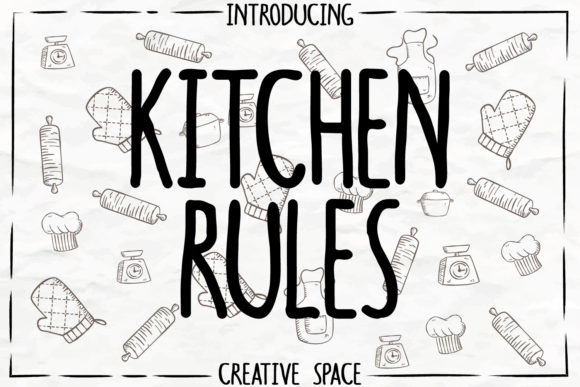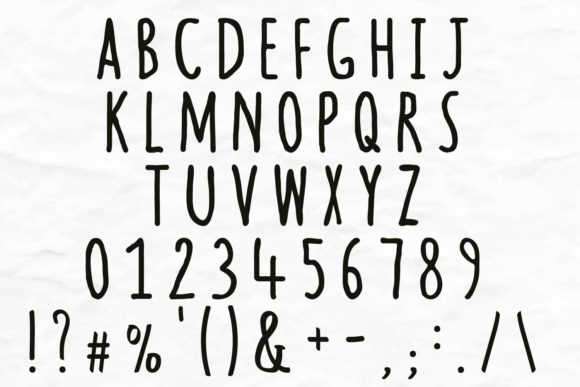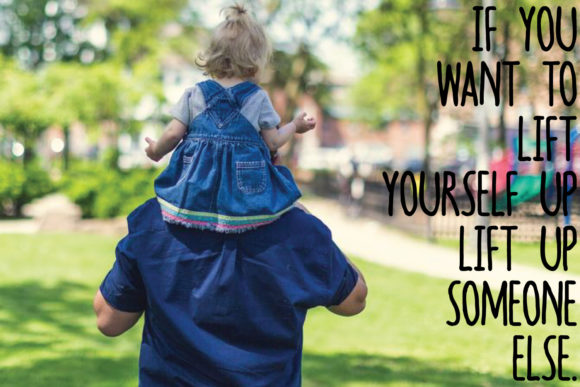
HomeScript FontsKitchen Rules Font Script Fonts Kitchen Rules Font FacebookXPinterestWhatsApp Kitchen Rules Font Poster 2 Kitchen Rules Font Poster 3 Kitchen Rules Font Poster 4 About Kitchen Rules Font Kitchen Rules is a beautiful handwritten font that offers a personal and playful twist on any design. DOWNLOAD NOW People also explored Shelbymalkan Font Hu Malrang Kr Font Banana Shake Font Operatr Font Maroon Marble Bella Canvas 3005 Mockup Juragan Font Holy Mary Font Self Sparkle Font Ansahas Font 340 0 TagsKitchen Rules Font Previous articleAshadiya FontNext articleBlack Panther Font LEAVE A REPLY Cancel reply Comment: Please enter your comment! Name:* Please enter your name here Email:* You have entered an incorrect email address! Please enter your email address here Website: Save my name, email, and website in this browser for the next time I comment. Personal Use Free Autumn Flowers Font Personal Use Free Read more about this font Cadosa Personal Use Free Read more about this font Starting Live Personal Use Free Read more about this font Baby Magnolia Personal Use Free Read more about this font BLOG Best Fonts for T-Shirt Design – Top 2025 Picks In 2025, t-shirt design has become more than just fashion—it's a form of self-expression. Whether you're... Elegant Wedding Invitation Fonts – Handwritten & Script Fonts Where to Buy American Fonts Online in 2024 Transform Your Website: Elevate Your Typography with 7 Best Web Font Generators